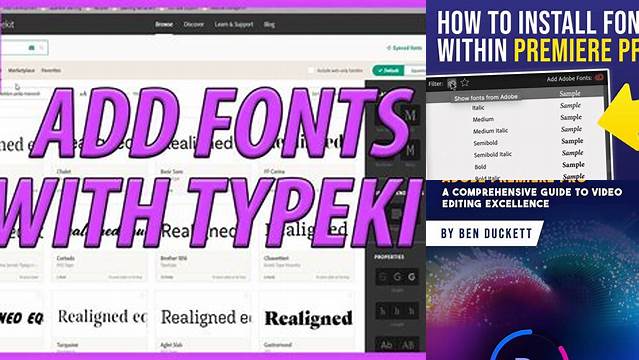
Unlock Adobe Fonts In Premiere Pro: A Quick Guide
So, you're diving into the world of video editing with Premiere Pro, that's awesome! But, hold on, are your titles looking a bit...blah? Do they lack that certain something? Well, fear not, because Adobe Fonts are here to save the day! This guide is your ultimate resource on how to seamlessly integrate Adobe Fonts into Premiere Pro and take your video projects to the next level. Let's get started, shall we?
1. Understanding Adobe Fonts and Creative Cloud Integration
First things first, what exactly are Adobe Fonts? Well, guys, they're a vast library of amazing typefaces included with your Adobe Creative Cloud subscription. That means, if you're already paying for Premiere Pro or the entire Creative Cloud suite, you've got access to thousands of fonts without any extra cost! The beauty of it all lies in the seamless integration between Adobe Fonts and the Creative Cloud desktop app. This integration makes browsing, activating, and using fonts in Premiere Pro super easy. No more hunting down fonts on sketchy websites or worrying about licensing issues. Everything is handled within the Adobe ecosystem, ensuring a smooth and legal workflow. So, embrace the power of Creative Cloud and unlock a world of typographic possibilities for your video projects. It's like having a personal font foundry right at your fingertips. Take the time to explore the Adobe Fonts library and discover the perfect typefaces to complement your visual storytelling. With a diverse range of styles, weights, and classifications, you're sure to find fonts that enhance your message and captivate your audience. Remember, typography plays a crucial role in conveying tone, emotion, and brand identity. So, choose your fonts wisely and let them work their magic in your Premiere Pro projects. Don't be afraid to experiment and push the boundaries of your creative expression. With Adobe Fonts and Creative Cloud integration, the possibilities are endless. So, go ahead and unleash your inner typographer and create visually stunning videos that leave a lasting impression. It's time to elevate your video editing game with the power of Adobe Fonts!
2. Activating Adobe Fonts Through the Creative Cloud Desktop App
Okay, so you know what Adobe Fonts are, but how do you actually get them into Premiere Pro? It's all about the Creative Cloud desktop app, dudes! This little app is your command center for managing your Adobe subscriptions, apps, and, most importantly, your fonts. Open up the Creative Cloud app and navigate to the "Fonts" tab. Here, you'll see a searchable library of all the available Adobe Fonts. You can browse by category, style, or even search for specific font names. Once you find a font that tickles your fancy, simply click the "Activate" button next to it. Boom! The font is now automatically downloaded and installed on your system, ready to be used in Premiere Pro and other Creative Cloud applications. It's that simple! The Creative Cloud desktop app handles all the technical stuff in the background, so you don't have to worry about complicated installation processes or font management. It's a seamless and hassle-free way to access a vast library of high-quality fonts. Keep in mind that you need to be logged in to your Adobe account to activate fonts. So, make sure you're signed in to the Creative Cloud app with the same account you use for Premiere Pro. Also, it's a good idea to keep the Creative Cloud app running in the background, as it ensures that your activated fonts remain available across all your applications. If you ever need to deactivate a font, simply go back to the Creative Cloud app and click the "Deactivate" button next to the font name. This will remove the font from your system and free up resources. Remember to only activate the fonts you need for your current projects to avoid cluttering your font menu. With the Creative Cloud desktop app, managing your Adobe Fonts is a breeze. So, take advantage of this powerful tool and unlock a world of typographic possibilities for your Premiere Pro projects.
3. Finding the Perfect Font for Your Project
Finding the right font is key, folks. Don't just grab the first fancy-looking font you see! Think about the tone and style of your video. Is it a serious documentary? A lighthearted comedy? A sleek corporate presentation? The font you choose should reflect the overall mood and message of your project. Adobe Fonts offers a wide variety of typefaces, from classic serifs to modern sans-serifs, and everything in between. Take some time to browse the library and experiment with different options. Pay attention to the font's weight, width, and overall aesthetic. Consider how the font will look on screen, especially at different sizes. Will it be easy to read? Will it complement the visual elements of your video? Don't be afraid to try out different font combinations. Sometimes, pairing a bold headline font with a more subtle body text font can create a visually appealing and professional look. You can also use Adobe Fonts' filtering options to narrow down your search based on specific criteria, such as font family, weight, or style. This can help you quickly find the perfect font for your project without having to scroll through endless pages of options. Remember, typography is an art form, and choosing the right font is an essential part of the creative process. So, take your time, explore the possibilities, and find the font that truly elevates your video project. With a little bit of experimentation and attention to detail, you can create visually stunning and engaging videos that capture your audience's attention and leave a lasting impression.
4. Accessing Activated Fonts in Premiere Pro
Alright, you've activated your fonts – now, let's get them into Premiere Pro! Once you've activated fonts through the Creative Cloud desktop app, they should automatically appear in Premiere Pro's font menu. Simply open up a text layer or create a new title, and then click on the font selection dropdown. You should see your newly activated fonts listed alongside the default system fonts. If you don't see them right away, try restarting Premiere Pro. Sometimes, it takes a quick restart for the application to recognize the new fonts. Also, make sure you're logged in to your Adobe account within Premiere Pro. This ensures that Premiere Pro can access your activated fonts through the Creative Cloud. If you're still having trouble, double-check that the fonts are actually activated in the Creative Cloud desktop app. Sometimes, fonts can get deactivated due to syncing issues or other technical glitches. Once you've confirmed that the fonts are activated and you're logged in to your Adobe account, they should definitely appear in Premiere Pro's font menu. From there, you can select your desired font and start using it in your titles, lower thirds, and other text elements. Remember to experiment with different font sizes, weights, and styles to achieve the desired look and feel for your video project. With a little bit of creativity and attention to detail, you can create visually stunning and engaging videos that capture your audience's attention and leave a lasting impression. So, go ahead and unleash your inner typographer and let your fonts speak volumes in your Premiere Pro projects.
5. Troubleshooting Common Font Issues in Premiere Pro
Okay, sometimes things don't go as planned, right? If your fonts aren't showing up, don't panic! Here are a few troubleshooting steps: First, double-check that the fonts are activated in the Creative Cloud app. It sounds obvious, but it's an easy thing to miss. Second, restart Premiere Pro. As mentioned before, a quick restart can often resolve font recognition issues. Third, make sure you're logged in to your Adobe account within Premiere Pro. This ensures that Premiere Pro can access your activated fonts through the Creative Cloud. Fourth, check for font conflicts. Sometimes, having multiple versions of the same font installed on your system can cause conflicts and prevent Premiere Pro from recognizing the correct font. Try removing any duplicate font files from your system. Fifth, clear Premiere Pro's media cache. Sometimes, corrupted cache files can cause font-related issues. Clearing the media cache can often resolve these problems. To clear the media cache, go to Edit > Preferences > Media Cache and click on the "Remove Media Cache Files" button. Sixth, update Premiere Pro and the Creative Cloud desktop app to the latest versions. This ensures that you have the latest bug fixes and compatibility updates. If you've tried all of these troubleshooting steps and you're still having trouble, consider contacting Adobe support for assistance. They may be able to provide more specific guidance based on your individual situation. Remember, font issues can be frustrating, but they're often easily resolved with a little bit of troubleshooting. So, don't give up! With a little bit of patience and persistence, you can get your fonts working properly in Premiere Pro and create visually stunning videos that capture your audience's attention.
6. Organizing Your Favorite Fonts for Quick Access
Once you start accumulating a collection of Adobe Fonts, you might want to organize them for easier access. Premiere Pro doesn't have a built-in font management system, but there are a few workarounds you can use. One option is to create font collections within the Creative Cloud desktop app. This allows you to group your favorite fonts together based on project type, style, or any other criteria you choose. To create a font collection, simply select the fonts you want to include and then click on the "Add to Collection" button. You can then give your collection a name and access it later from the "My Fonts" section of the Creative Cloud app. Another option is to use a third-party font management tool. There are many font management applications available that offer advanced features such as font activation/deactivation, font preview, and font conflict resolution. These tools can be particularly helpful if you're working with a large number of fonts and need a more efficient way to manage them. Finally, you can simply create a list of your favorite fonts in a text document or spreadsheet. This may seem like a low-tech solution, but it can be surprisingly effective for quickly finding the fonts you need. Just make sure to include the font name, style, and any other relevant information that will help you identify the font quickly. By organizing your favorite fonts, you can save time and effort when working on your Premiere Pro projects. This will allow you to focus on the creative aspects of video editing without getting bogged down in font management tasks. So, take a few minutes to organize your fonts and streamline your workflow. It's a small investment that can pay off big in the long run.
7. Using Adobe Fonts for Titles and Lower Thirds
Let's talk specifics, folks! Adobe Fonts are perfect for creating eye-catching titles and lower thirds in Premiere Pro. These elements are crucial for conveying information, adding visual interest, and enhancing the overall professionalism of your videos. When choosing fonts for titles, consider using bold and impactful typefaces that grab the viewer's attention. Sans-serif fonts are often a good choice for titles, as they tend to be clean, modern, and easy to read on screen. Experiment with different font sizes, weights, and colors to create a visually appealing and dynamic title design. For lower thirds, which typically display information such as names and titles, it's important to choose fonts that are legible and unobtrusive. Avoid using overly decorative or distracting fonts, as they can detract from the main message. Instead, opt for clean and simple sans-serif or serif fonts that are easy to read at smaller sizes. Pay attention to the kerning and tracking of your fonts to ensure that the letters are properly spaced and the text is easy to read. You can also add subtle effects such as shadows or outlines to enhance the readability of your titles and lower thirds. Remember, the goal is to create titles and lower thirds that are both visually appealing and informative. By carefully choosing your fonts and paying attention to the details of your design, you can create professional-looking titles and lower thirds that elevate the overall quality of your videos. So, go ahead and experiment with different fonts and styles to find the perfect look for your projects. With Adobe Fonts and Premiere Pro, the possibilities are endless.
8. Exploring Different Font Styles and Classifications
The world of typography is vast and diverse, guys, and Adobe Fonts offers a wide range of font styles and classifications to explore. Understanding the different categories of fonts can help you make more informed decisions when choosing typefaces for your projects. Serif fonts are characterized by small decorative strokes at the ends of the letters. They are often associated with traditional and formal designs and are commonly used for body text in print publications. Sans-serif fonts, on the other hand, lack these decorative strokes and have a cleaner, more modern look. They are often used for headlines, titles, and web design. Script fonts are designed to mimic handwriting and have a flowing, elegant appearance. They are often used for invitations, greeting cards, and other special occasions. Display fonts are designed to be eye-catching and attention-grabbing. They often have unique and unusual designs and are used for headlines, posters, and other large-format applications. Monospace fonts have characters that all take up the same amount of horizontal space. They are often used for coding, technical documentation, and other applications where precise alignment is important. By understanding the different font styles and classifications, you can choose typefaces that are appropriate for your specific project and create visually appealing and effective designs. So, take some time to explore the Adobe Fonts library and discover the wide range of typographic possibilities available to you. With a little bit of experimentation and knowledge, you can create stunning designs that capture your audience's attention and convey your message effectively.
9. Pairing Fonts Effectively in Your Video Projects
So there you have it, guys! A comprehensive guide to getting the most out of Adobe Fonts in Premiere Pro. Now go forth and create some visually stunning videos!